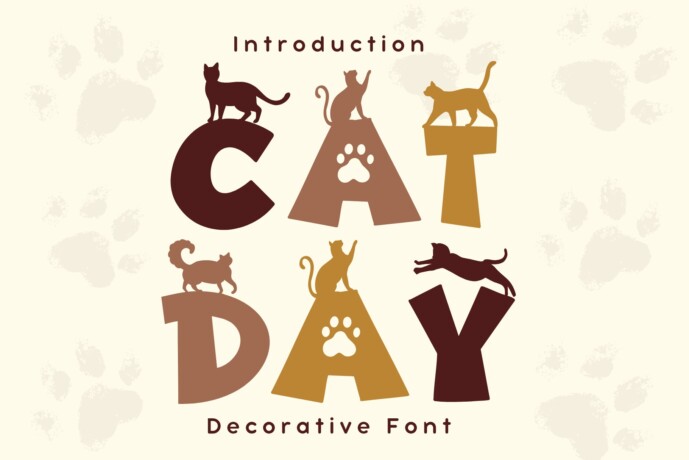
Cat Day Font
Designer: Pui Art
Cat Day is a feline decorative font. You can use it for taking notes, writing a diary, or making greeting cards. However, you can still use it for other designs, such as banners, content, mugs, cards, shirts, stationery, social media posts, and more!